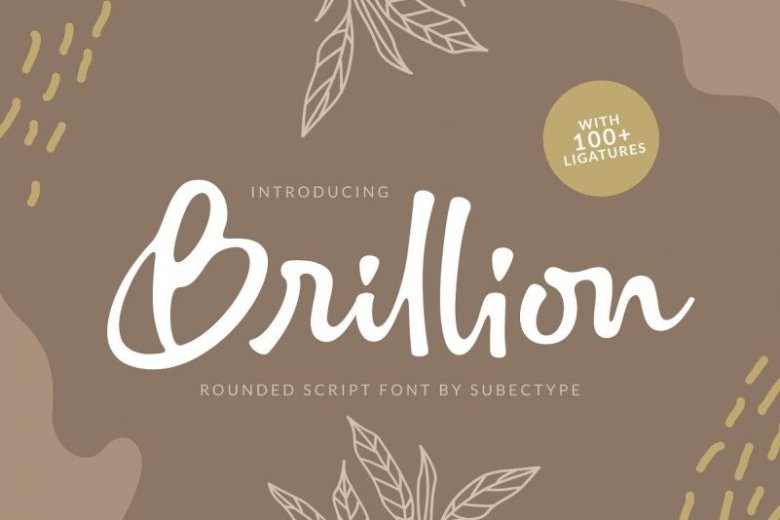
Brillion Font
Brillion Font is a natural handwritten font which perfect for your designs project like logo, signature, invitation, stationary, wedding photo, watermark, social media post, advertisement, poster, product packaging, label, photography, event post and other designs.